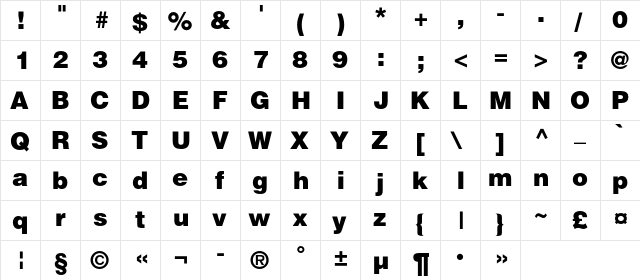
HeliosBlackC Regular
Design Context for HeliosBlackC Typeface
HeliosBlackC takes a measured approach to typography — its balanced proportions and neutral character make it a reliable workhorse for both digital and print work.